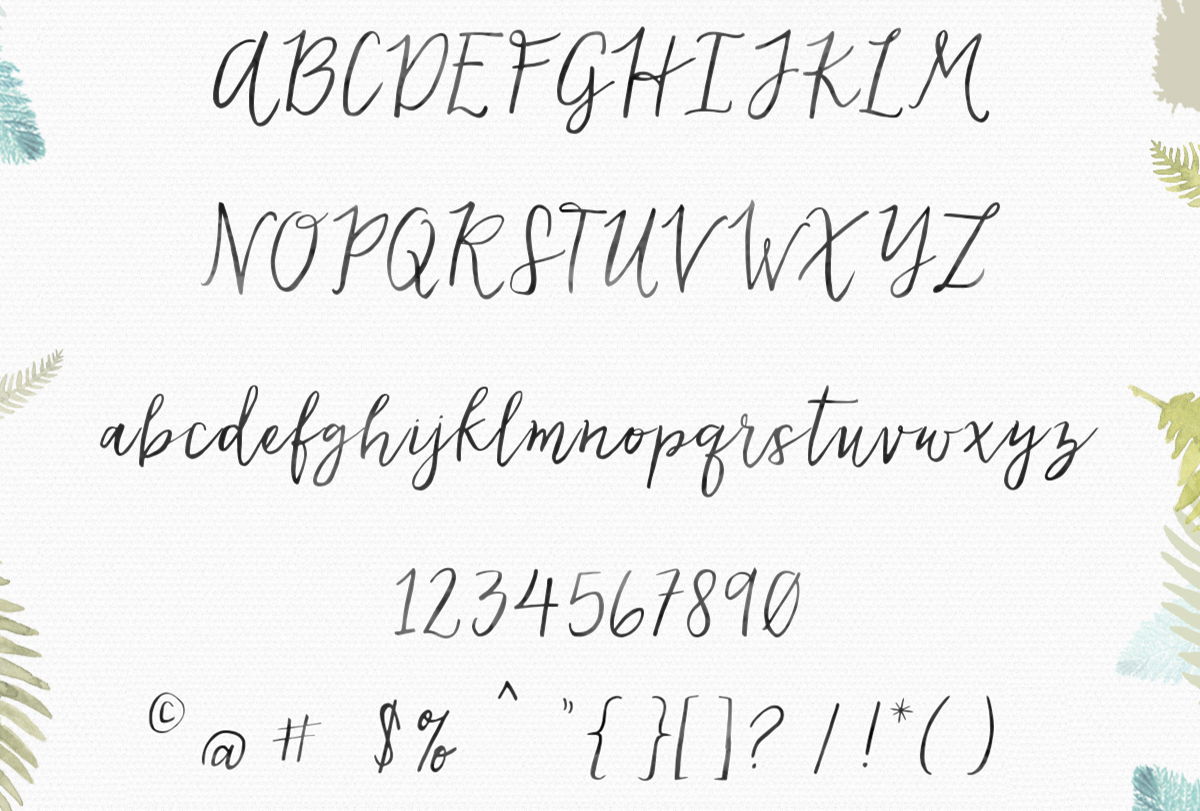
Cool Calligraphy Fonts Modern 2022
Cool Calligraphy Fonts Modern 2022. Web calligraphy school handwritten brush trash graffiti old school various. This font style will give a.
Calligraphy is an artistic writing style where the pressure is varied to create thick and thin lines, all in a single stroke. Web numberlin ordinary is a modern script calligraphy font. Web this free modern calligraphy font has been designed by billy argel’s font.
Web Calligraphy Is An Ancient Writing Technique Using Flat Edged Pens To Create Artistic Lettering Using Thick And Thin Lines Depending On The Direction Of The Stroke.
Web Modern Calligraphy Fonts Can Be Very Useful In Various Types Of Designs.
Holyson Is A Modern Handwritten Calligraphy Font With A Rough Brush Stroke Style To Give A Textured, Authentic Feel.
Web numberlin ordinary is a modern script calligraphy font. Arizonia arizonia is a modern, casual font with thin upstrokes and thick downstrokes, which makes it more suitable for. Web modern calligraphy fonts.
If You Are Looking To Design A Greeting Card For Your Loved Ones Then These Fonts Are Perfect For You.